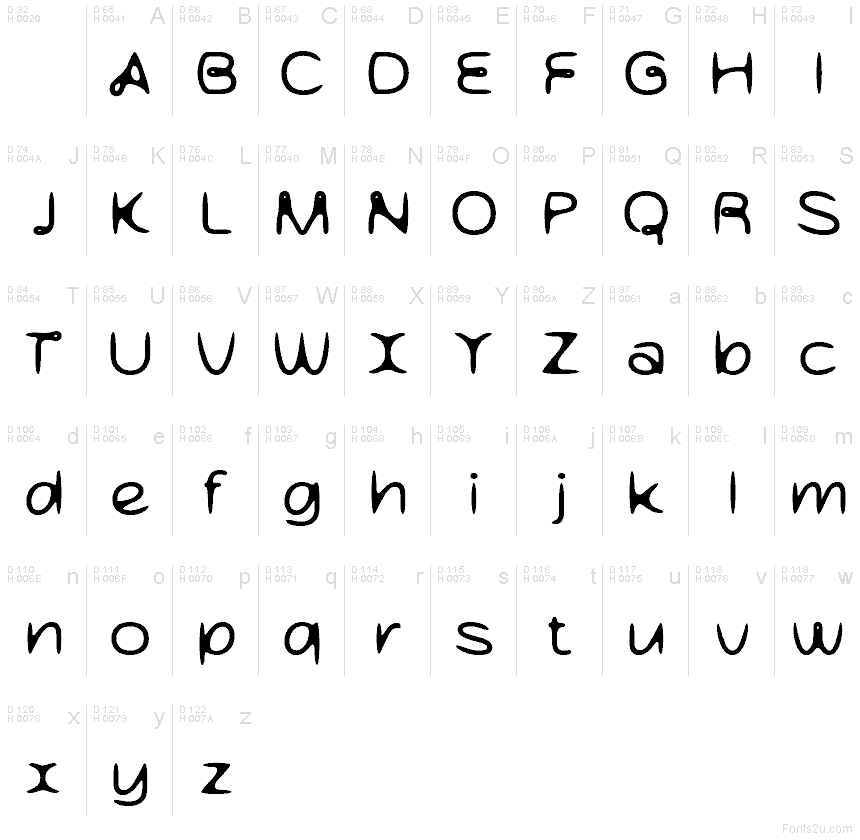
CSAriesDrawn-Regular Demo
CS Aries Drawn font by Craft Supply Co. presents an inviting, youthful vibe characterized by fluid organic shapes. The free expanded display font features casual curves and a friendly appearance that will engage viewers of all ages through its playful style.